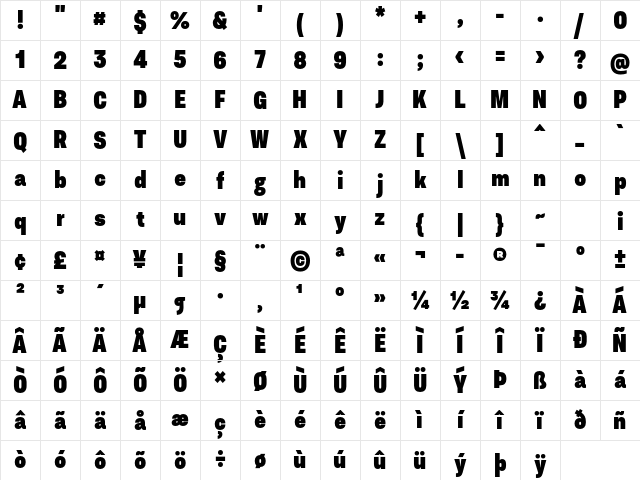
Complete Asket Condensed ExtraBold glyph index. Displaying only characters natively supported by Asket Condensed ExtraBold font.
Asket Condensed is a composed and adaptable typeface that performs quietly and consistently across a wide range of design contexts. Its bold stroke weight gives it real presence on the page. Its narrow stance lets it pack a punch even in space-constrained designs.